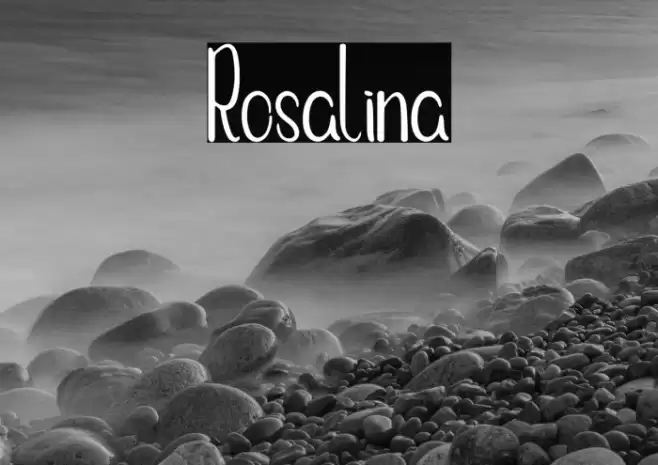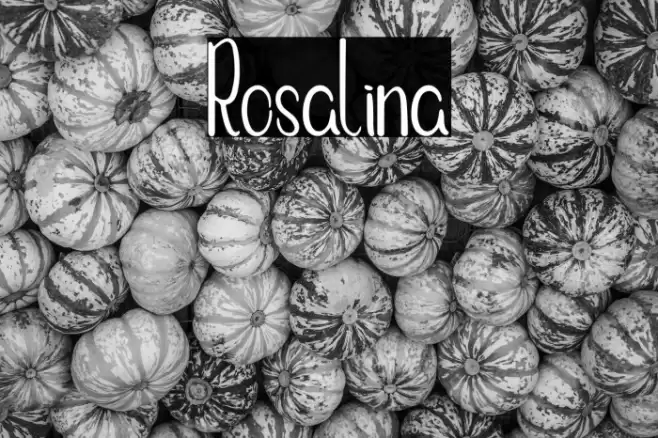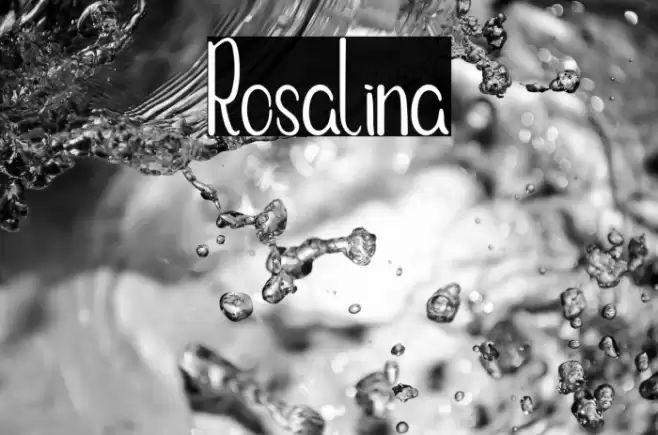
Rosalina Font
Rosalina Description
This font features a playful and whimsical design with tall, narrow characters that have a hand-drawn feel. The uppercase letters are elongated with a slight curve, giving them a unique and artistic appearance. The lowercase letters maintain a consistent style, with some characters having distinctive loops and swirls. The numbers and special characters follow the same playful theme, making the font suitable for creative and informal projects. The overall design is clean yet expressive, making it versatile for various applications.
A playful, hand-drawn font with tall, narrow characters and a whimsical style from Regular fonts.
- Proposed Projects: Ideal for children's books, greeting cards, playful branding, and creative posters.